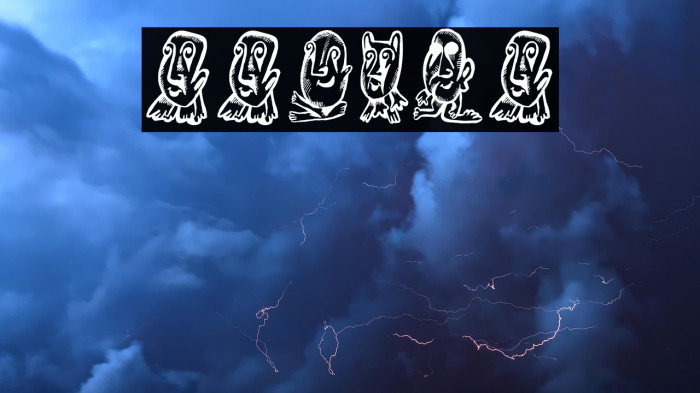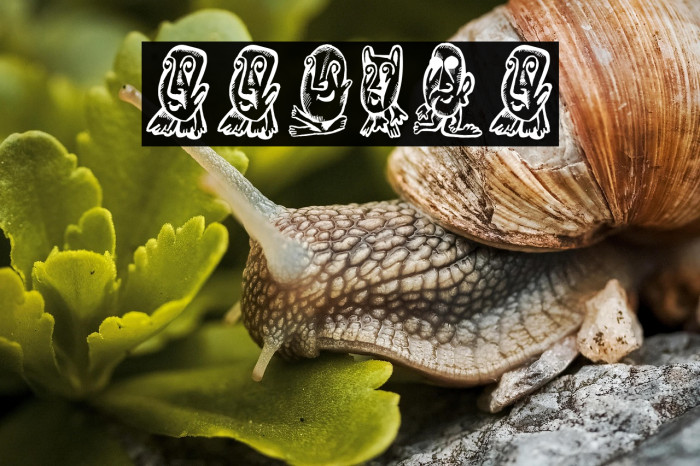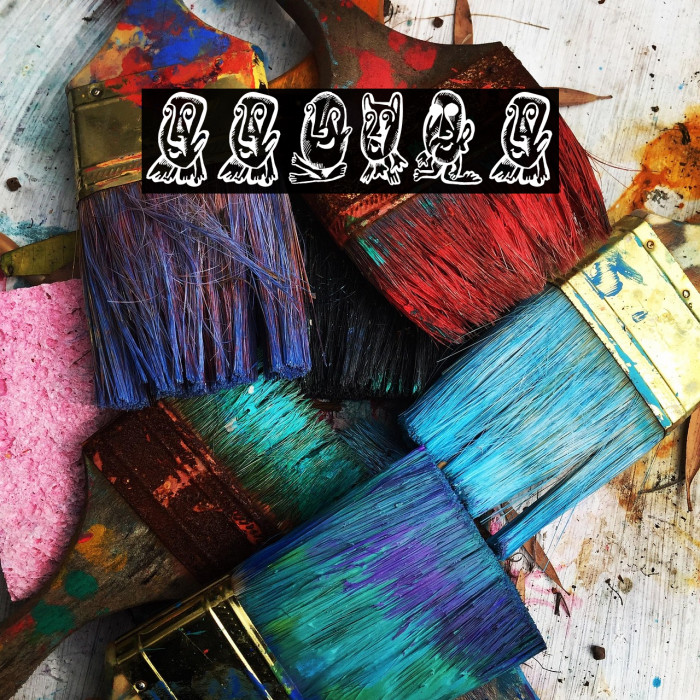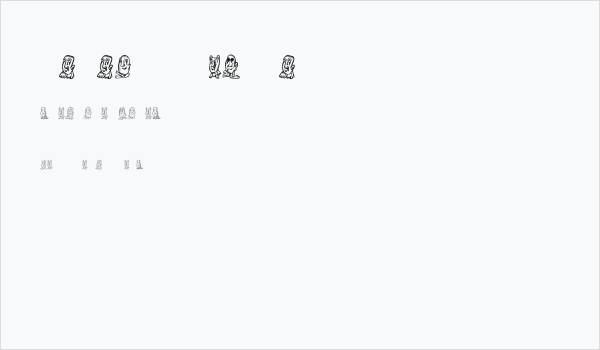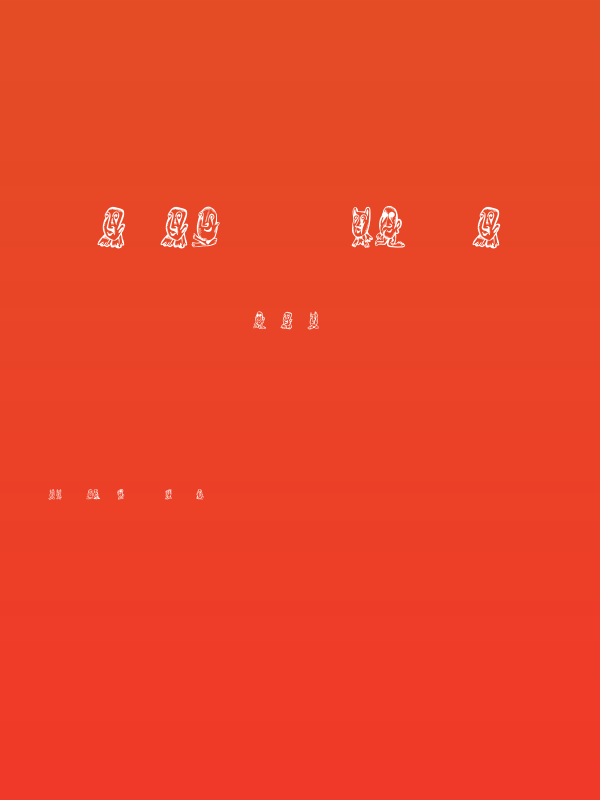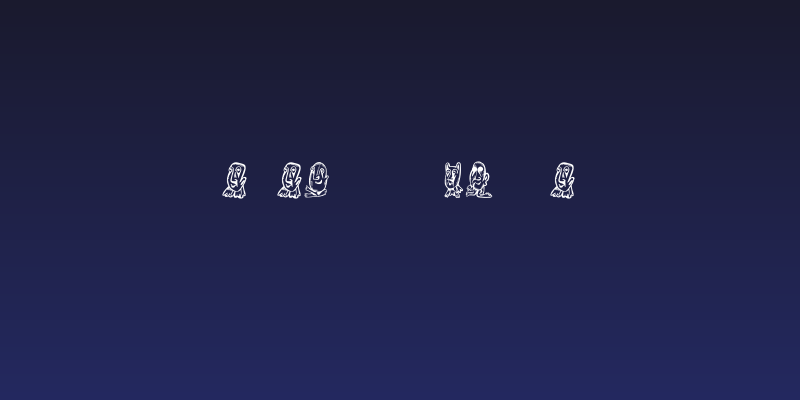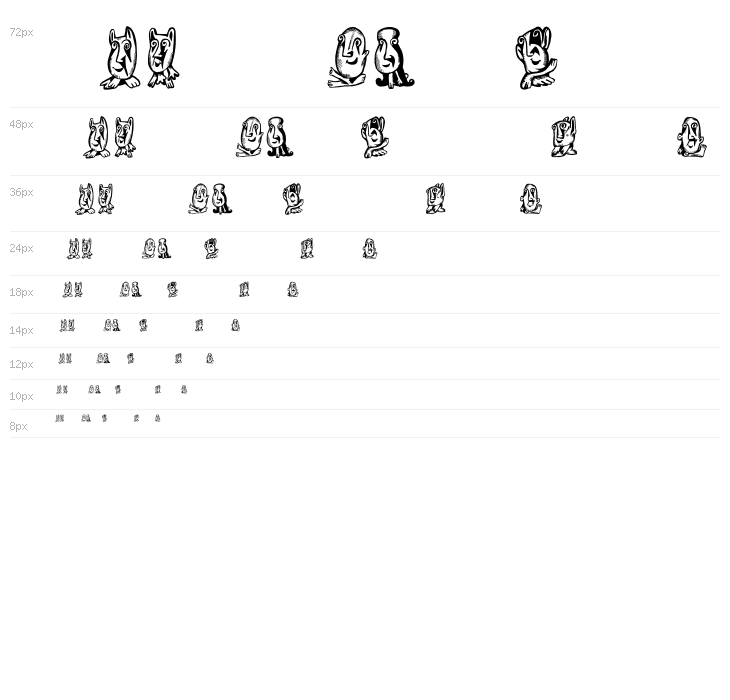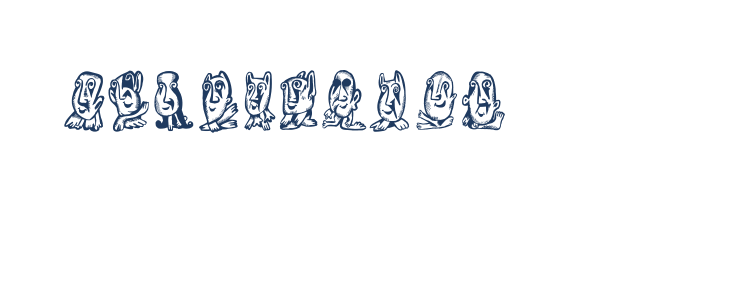
Paraiso Regular Font
Paraiso Regular Description
This font features a highly decorative and artistic style, with each character resembling a unique, abstract face. The design is whimsical and playful, incorporating intricate details that give each letter a distinct personality. The strokes are bold and expressive, with varying thickness that adds to the dynamic appearance of the font. This artistic approach makes it stand out, offering a creative and unconventional aesthetic. The characters are closely spaced, enhancing the compact and cohesive look of the text. Overall, this font is a striking choice for projects that aim to capture attention and convey a sense of creativity and fun.
A whimsical and artistic font with characters resembling abstract faces from Dingbats fonts.
- Proposed Projects: Ideal for artistic projects, creative branding, posters, and unique invitations.
- Character Spacing: Tight
- Use Case: Logos, Posters, Artistic projects